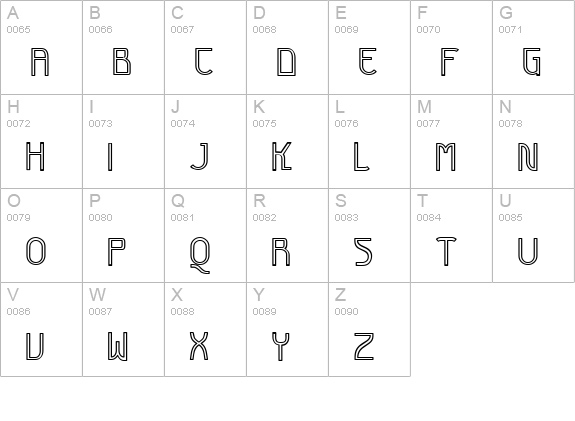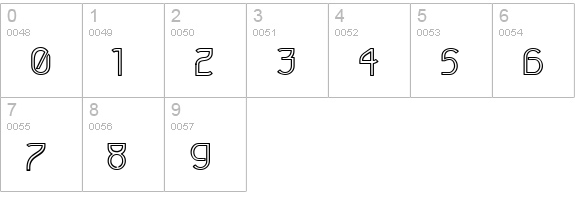
Futurex Variation Alpha Hollow font is a modern and stylish typeface that exudes a futuristic vibe with its sleek and minimalist design. The unique hollow style of the letters adds a touch of sophistication to any project, making it perfect for branding, headlines, and signage. The clean lines and geometric shapes of this font make it highly versatile and suitable for a wide range of design applications. What's even better is that Futurex Variation Alpha Hollow font is available for free download at FontsMarket.com. This means that you can easily access this high-quality font without any cost, making it a valuable addition to your font collection. Don't miss out on the opportunity to enhance your designs with this eye-catching and modern typeface that will surely make a statement. Download Futurex Variation Alpha Hollow font today and take your design projects to the next level!